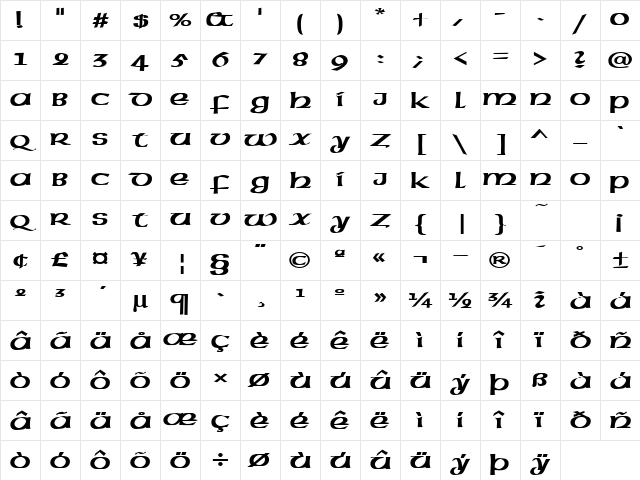
Celtic-Extended Bold
Design Context for Celtic-Extended
Celtic-Extended is a composed and adaptable typeface that performs quietly and consistently across a wide range of design contexts. Its bold stroke weight gives it real presence on the page.
Pro Tip: Use Celtic-Extended in both headline and body roles to test its range before committing to a single application.